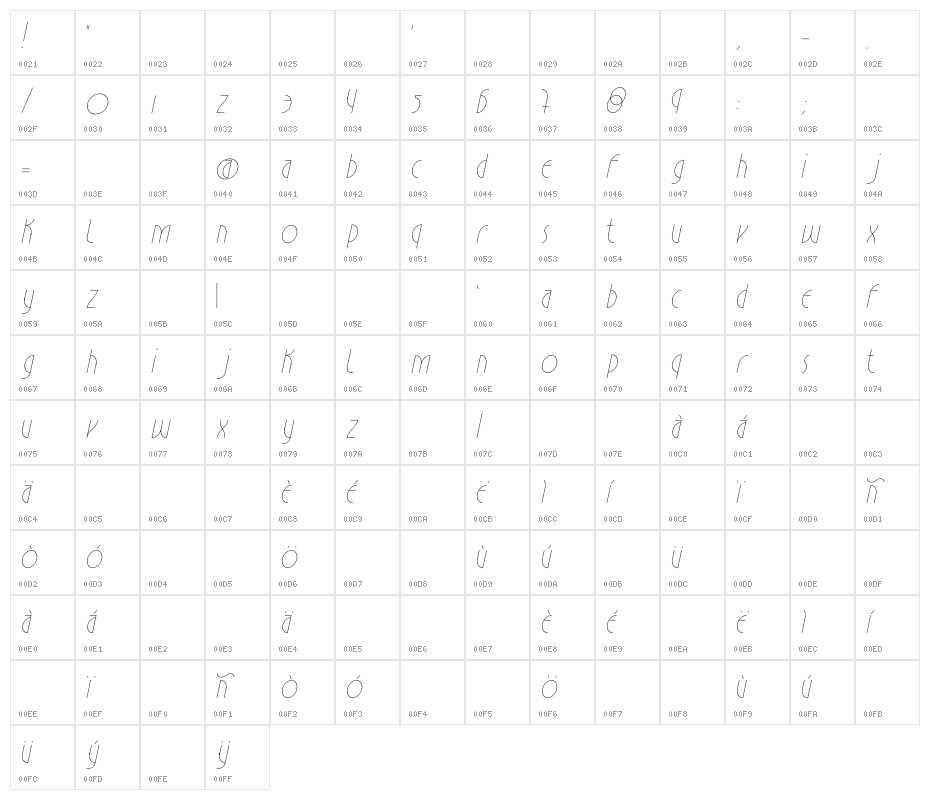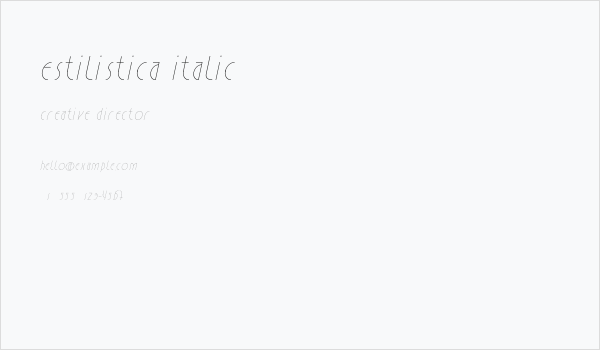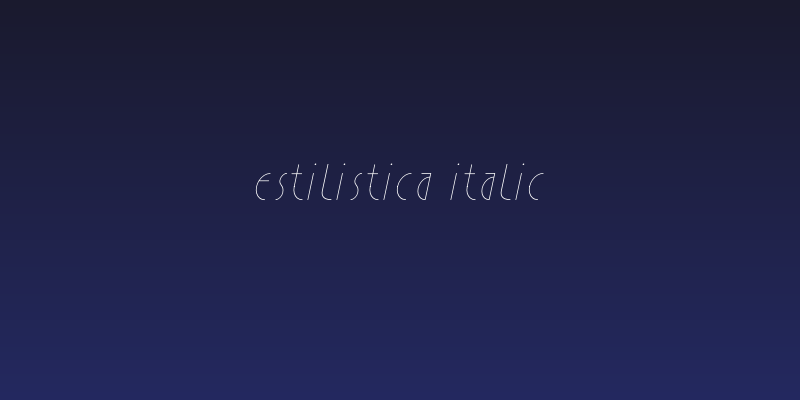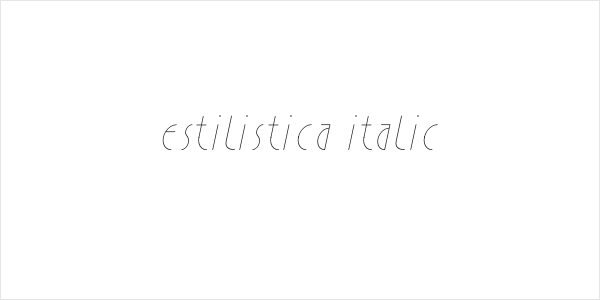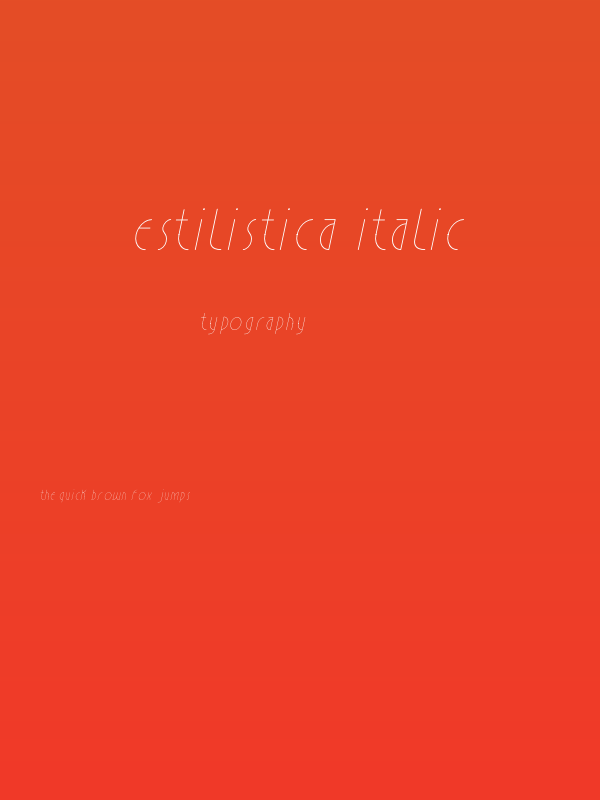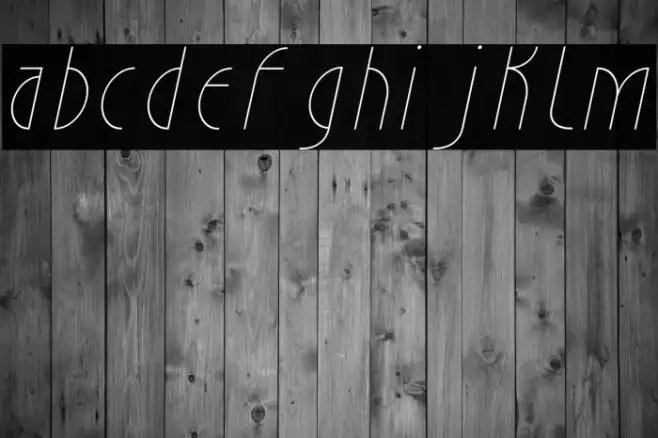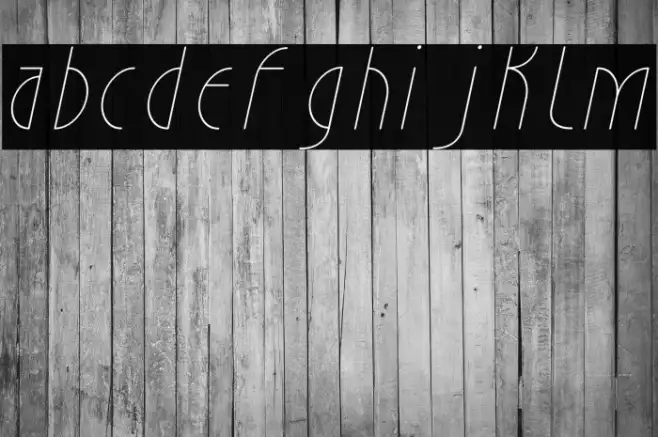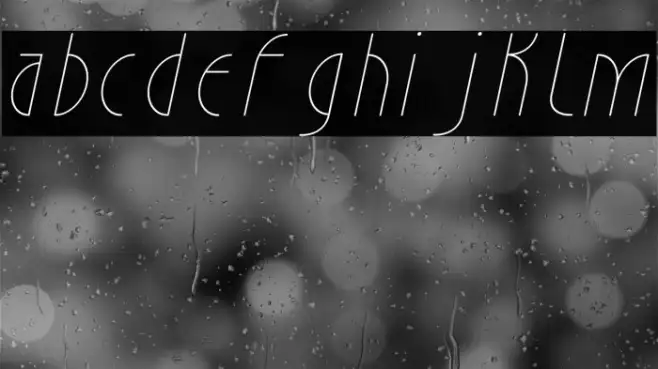
Estilistica Italic Font
Estilistica Italic Description
This font features a sleek and modern design with a distinct italic slant, giving it a dynamic and fluid appearance. The characters are thin and elongated, with a consistent stroke width that adds to its elegant and minimalist style. The uppercase and lowercase letters maintain a uniform height, contributing to a harmonious and balanced look. The numerals are uniquely styled, with curves that complement the overall aesthetic. Special characters are included, each designed to match the font's refined and contemporary feel. This font's clean lines and subtle sophistication make it versatile for various design applications.
| Proposed Projects | Ideal for fashion magazines, modern branding, elegant invitations, and minimalist web design. |